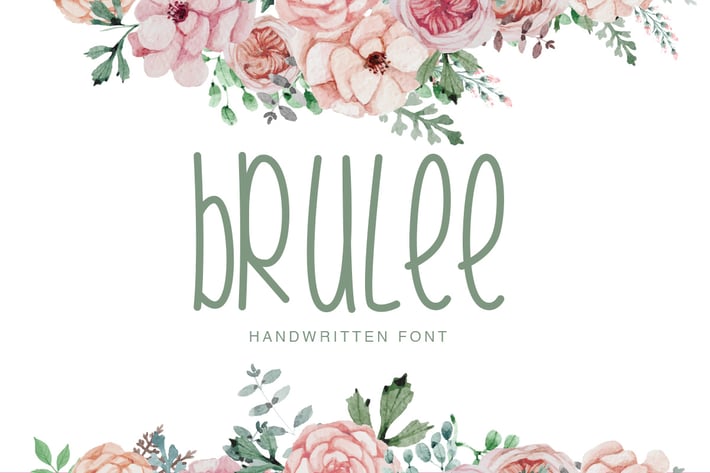
Brulee | Font Duo
Introducing Brulee Font Duo - fun display and vintage style, every single letters have been carefully crafted to make your text looks beautiful. With modern unique style this font will perfect for many different project ex: quotes, blog header, poster, wedding, branding, logo, fashion, apparel, letter, invitation, stationery, etc.